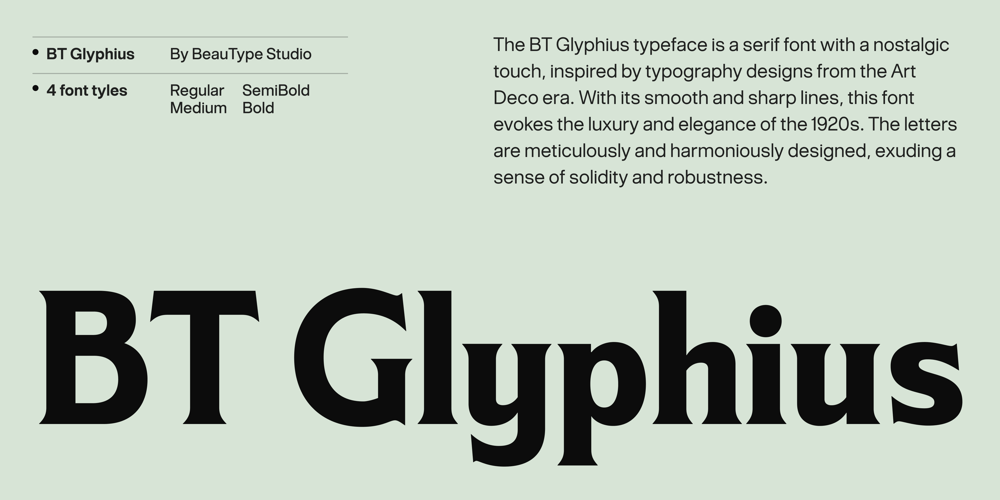
BT Glyphius Font Family was designed by published by BeauType. BT Glyphius contains 3 styles and family package options. BT Glyphius is a serif typeface with a nostalgic touch, inspired by Art Deco typography designs. With smooth, sharp lines, this font evokes the elegance and sophistication of the 1920s. The letters are designed with balance and meticulous detail, giving a sense of solidity and steadiness. This typeface can be used in classic, luxurious designs such as logos, book titles, magazines, art posters, or high-end advertising publications.